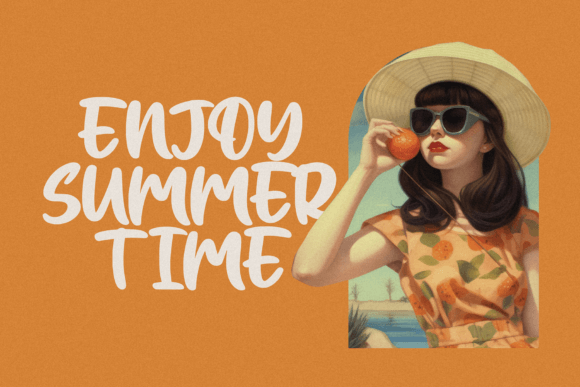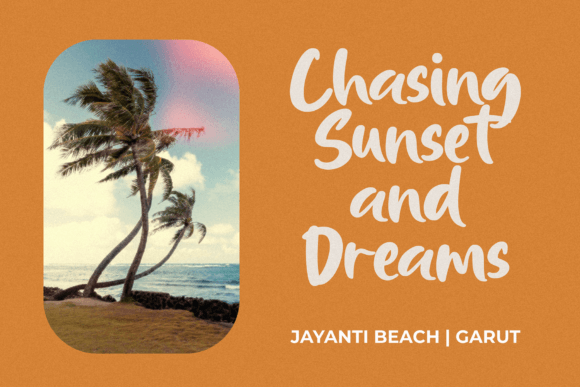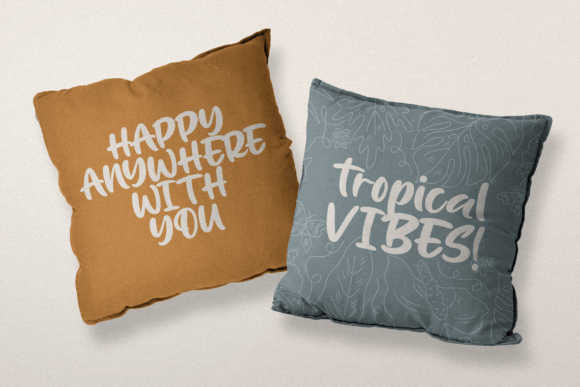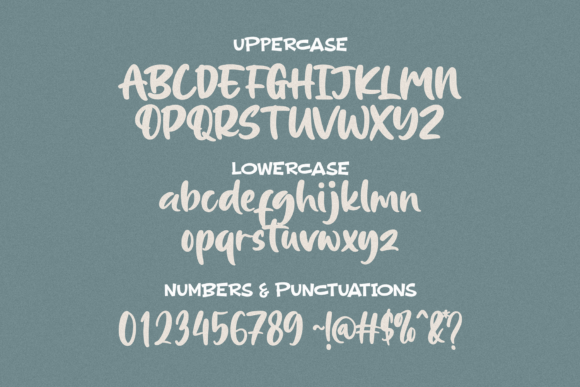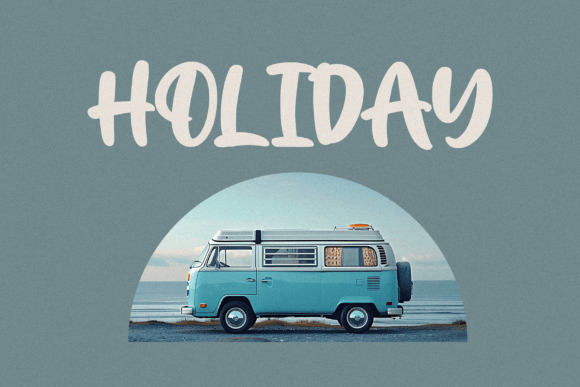
Introduction to Moris Palm Font
Have you ever been working on a creative project, pouring your heart and soul into it, only to feel like something’s missing? A spark that would elevate your design from good to great? For many designers, that spark comes in the form of a beautiful, high-quality font that captures the essence of their vision.
Enter Moris Palm Font – a stunning, handwritten font that embodies the carefree spirit of summer. Imagine a warm, sunny day, a transparent background, and a design that’s as fresh as the morning dew. Moris Palm Font is the perfect design resource for anyone looking to add a relaxed, inviting touch to their project. And the best part? It’s available for a free download, making it a valuable addition to any designer’s toolkit.
- High-quality, unique design ideal for creative projects requiring a distinctive touch
- Transparent background, making it perfect for overlaying on images or videos
- Unique characteristics: elegant, modern, and minimalist aesthetic, suitable for branding, logos, and typography
- Perfect for designers seeking a stylish and versatile font for their creative projects
Honest Review: Moris Palm Font
I recently had the chance to work with the Moris Palm Font, and I must say it’s a great addition to any design project. One of the things that stands out is its transparent background, which makes it easy to use as a design resource in creative projects.
- High quality design that’s perfect for headings and titles
- Works well in a variety of digital formats, from social media to websites
- Easy to use and customize with your favorite design tools
- Only comes in a single weight, which may limit its versatility
- No extensive language support, which may be a concern for designers working with non-English clients
- Not suitable for very small text sizes, which may affect readability
Overall, I’m impressed with the Moris Palm Font. It’s a solid choice for designers looking for a high-quality, easy-to-use font that’s perfect for a variety of creative projects.
Moris Palm Font
The Moris Palm Font is a high-quality design resource ideal for creative projects requiring a modern and elegant touch. This versatile font is available for free download and features a transparent background, making it easy to integrate into various design projects.
Tips for Getting the Most Out of Moris Palm Font
To get the most out of the Moris Palm Font, experiment with different font sizes, colors, and combinations to achieve a unique and eye-catching design. Additionally, consider pairing the font with other design elements to create a cohesive and visually appealing design.
The Moris Palm Font is ideal for various design projects, including:
- Infographics and data visualizations
Alternatives to Moris Palm Font
Great Vibes Font is a high-quality, elegant script font perfect for creative projects that require a touch of sophistication. It features a transparent background, making it ideal for overlaying text on images. When to use: weddings, invitations, and any project where a beautiful, handwritten feel is desired.
Compared to Moris Palm Font, Great Vibes Font has a more refined, vintage look that is perfect for projects where a classic, timeless feel is desired.
Alex Brush Font is a beautiful, handwritten font that is ideal for creative projects that require a personal, touch. It features a high-quality design and a transparent background, making it perfect for overlaying text on images. When to use: branding, packaging, and any project where a unique, handwritten feel is desired.
Compared to Moris Palm Font, Alex Brush Font has a more flowing, expressive look that is perfect for projects where a personal touch is desired.
Carolyna Pro Font is a modern, elegant script font that is perfect for creative projects that require a touch of luxury. It features a high-quality design and a transparent background, making it ideal for overlaying text on images. When to use: high-end branding, luxury packaging, and any project where a sophisticated, elegant feel is desired.